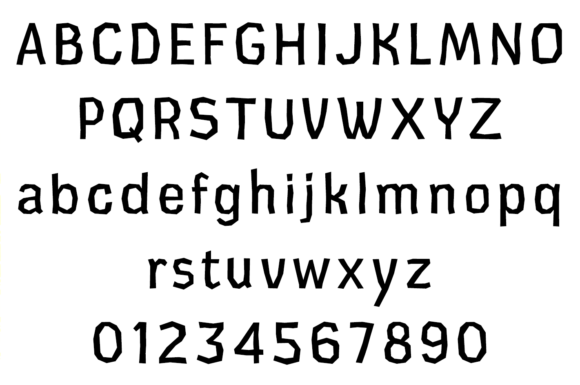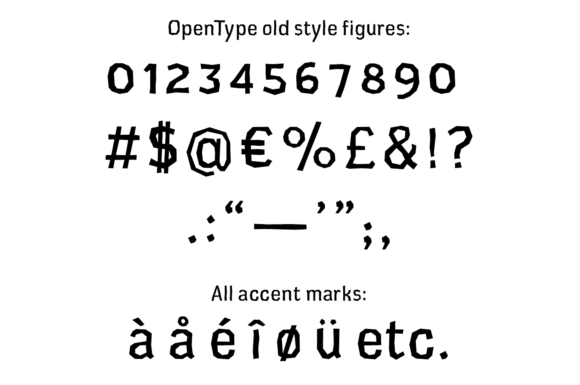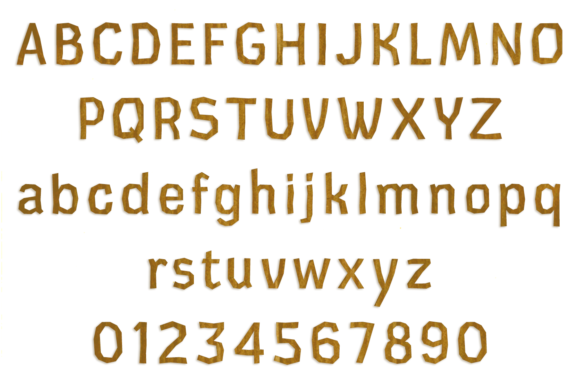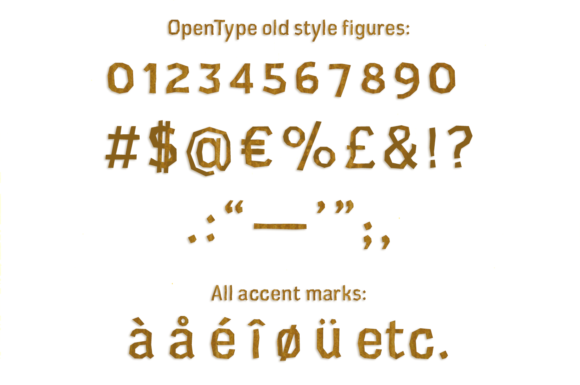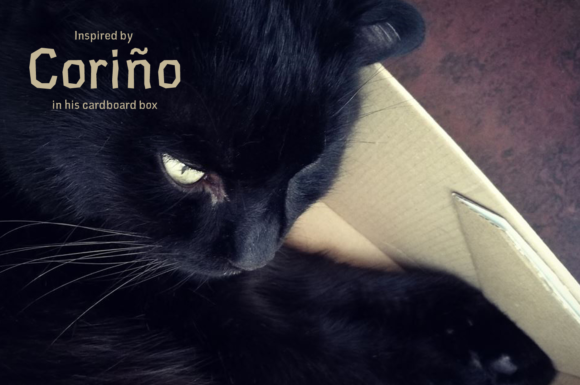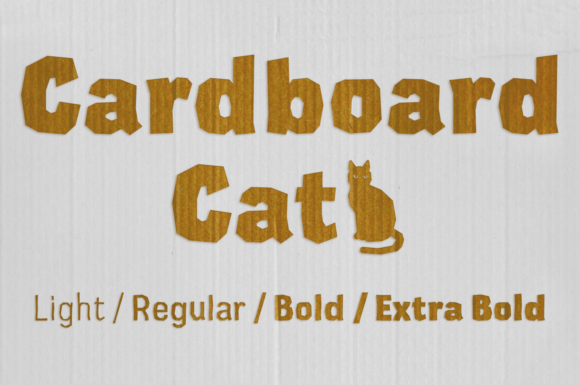
Introducing Cardboard Font: The Edgy yet Sweet Display Font for Creative Minds
Are you a designer, crafter, or DIY enthusiast looking for a font that can add a touch of edginess and playfulness to your creative projects? Look no further than Cardboard Font! This exciting display font is designed to turn any idea into an eye-catcher, making it perfect for those who want to make a statement.
What is Cardboard Font?
Cardboard Font is a unique and versatile display font that combines edgy and fun elements with a sweet feel. Its distinctive style is reminiscent of cardboard textures, giving it a raw and organic look that’s perfect for creative projects that require a bit of attitude.
Key Features of Cardboard Font
- Edgy and Fun: Cardboard Font has a bold and adventurous personality that’s sure to grab attention. Its edgy feel makes it perfect for projects that require a bit of an edge, such as posters, flyers, and social media graphics.
- Sweet and Playful: Despite its edgy vibe, Cardboard Font also has a sweet and playful side that’s perfect for projects that require a touch of whimsy. Use it for crafting, DIY projects, or any creative endeavor that needs a bit of personality.
- Display Font: Cardboard Font is designed specifically as a display font, making it perfect for headlines, titles, and short phrases. Its bold and eye-catching style ensures that your message will be seen and remembered.
- Versatile: Cardboard Font can be used for a wide range of creative projects, from graphic design and crafting to DIY and paper crafting.
Who is Cardboard Font for?
Cardboard Font is perfect for:
- Graphic Designers: Add a touch of edginess and playfulness to your designs with Cardboard Font. Use it for client projects or personal designs.
- Crafters and DIY Enthusiasts: Use Cardboard Font to add a personal touch to your crafting and DIY projects, such as handmade cards, gift tags, and scrapbooking.
- Social Media Influencers: Stand out on social media with eye-catching graphics and bold headlines created with Cardboard Font.
- Small Business Owners: Use Cardboard Font to create attention-grabbing signage, flyers, and brochures that showcase your brand’s personality.
How to Use Cardboard Font
Using Cardboard Font is easy! Here are a few tips to get you started:
- Pair it with Other Fonts: Combine Cardboard Font with other fonts to create interesting contrasts and add depth to your designs.
- Experiment with Colors: Try out different colors and textures to give your designs a unique look and feel.
- Play with Sizes: Use Cardboard Font in different sizes to create visual interest and hierarchy in your designs.
| Font Name | Cardboard Font |
| Author | Studio Dot by dot |
Cardboard Font is an exciting and versatile display font that’s perfect for designers, crafters, and DIY enthusiasts who want to add a touch of edginess and playfulness to their creative projects. With its unique style, bold personality, and sweet feel, Cardboard Font is sure to turn any idea into an eye-catcher. So why wait? Give Cardboard Font a try today and take your creative projects to the next level!